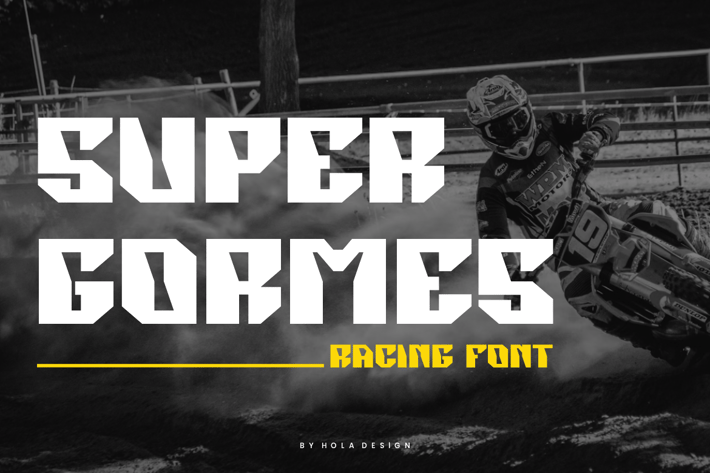
Super Gormes - Speed & Racing Font
Super Gormes - Speed & Racing Font is unique . Ready to use for your design like labeling, movie sceen, poster, movie title, gigs, album covers, logos, and much more.